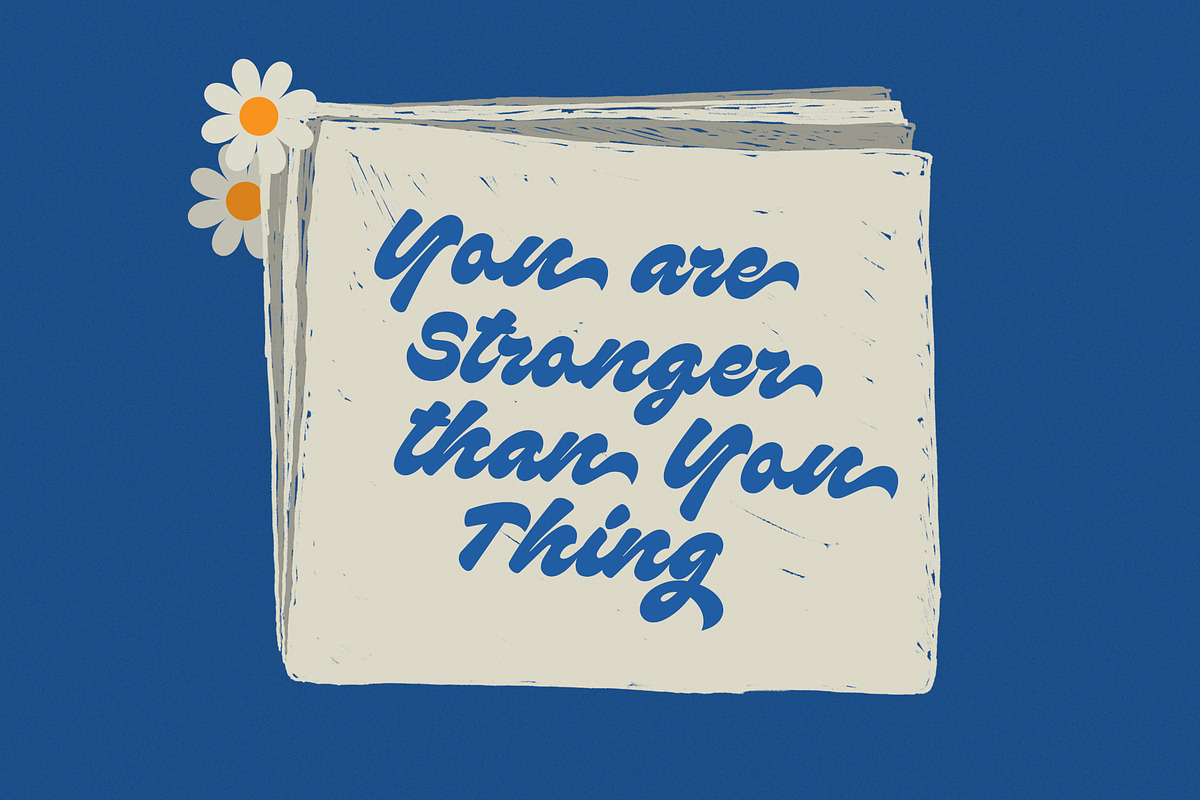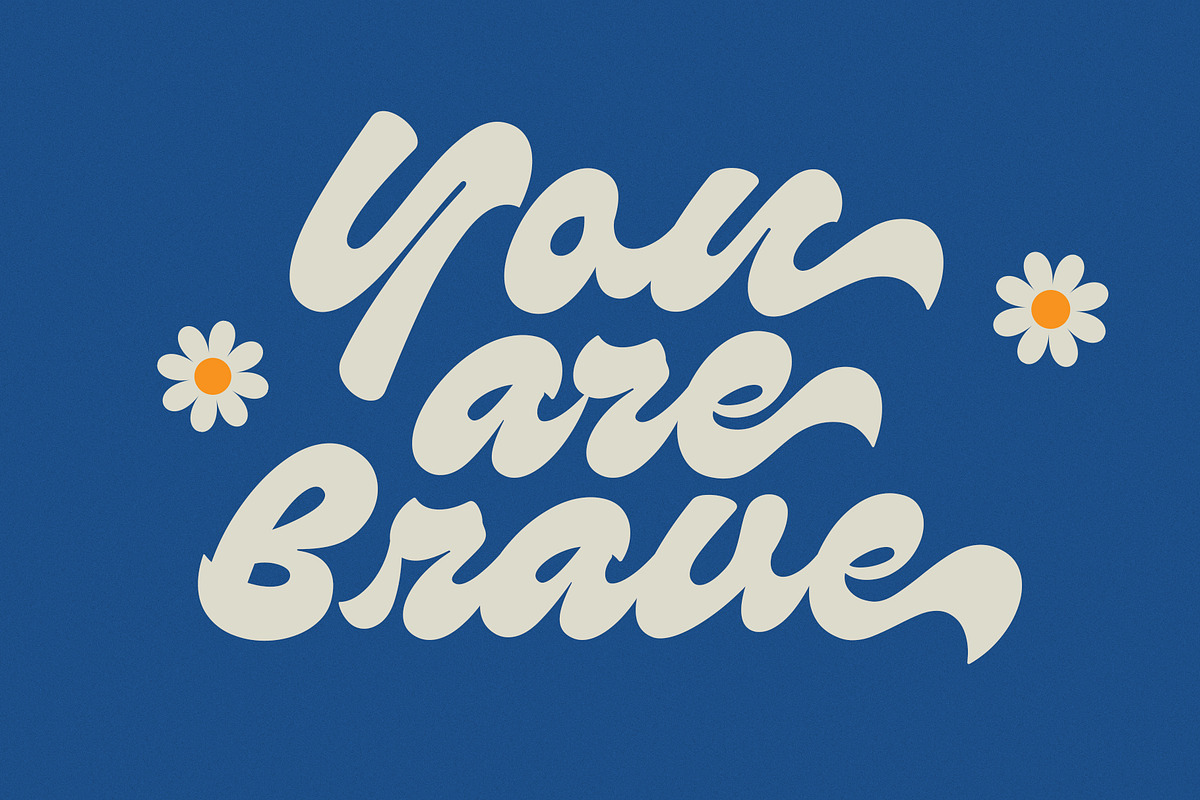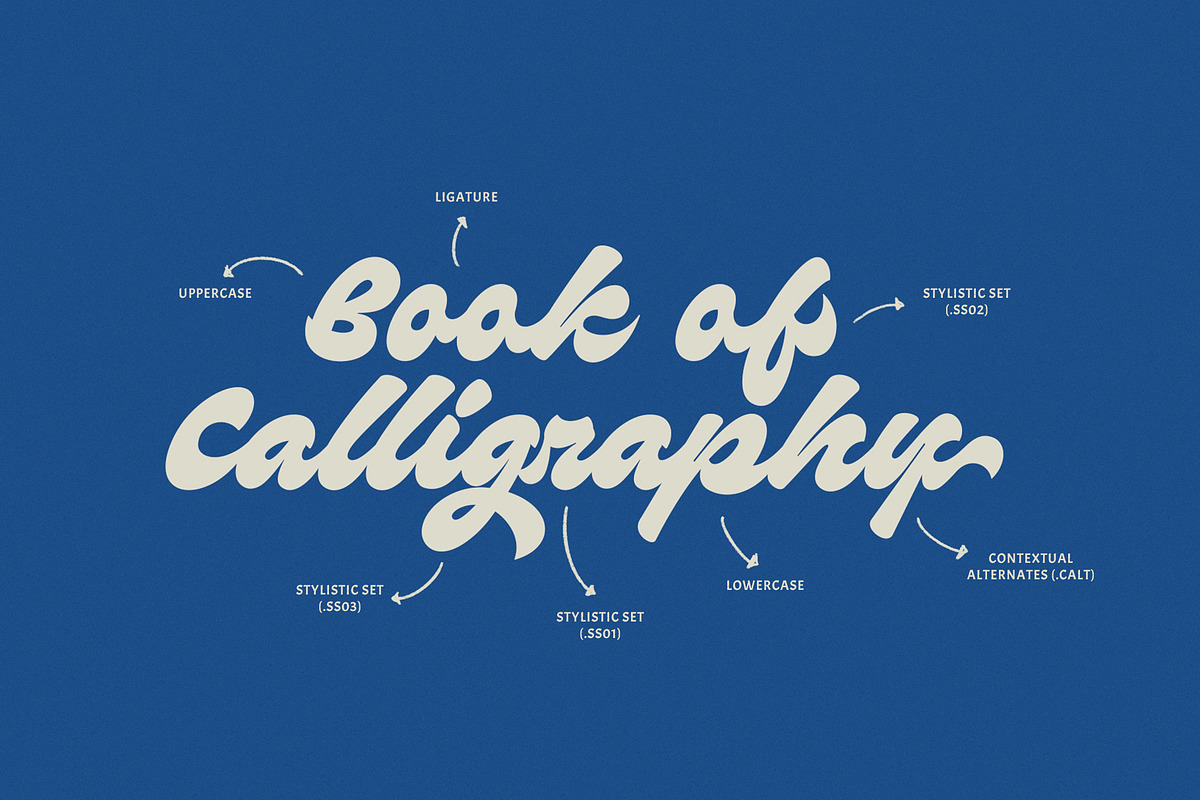
ED Corning is a bold script font with a classic vintage style. This font is equipped with a stylist set, Contextual Alternative, ligatures and also multi-language support which further adds to the creativity in using this font.
With a unique appearance this font is suitable for your work such as Logotype, printed quotes, invitations, cards, product packaging, headers, Letterhead, Apparel , Web design, Magazine, Book, etc.